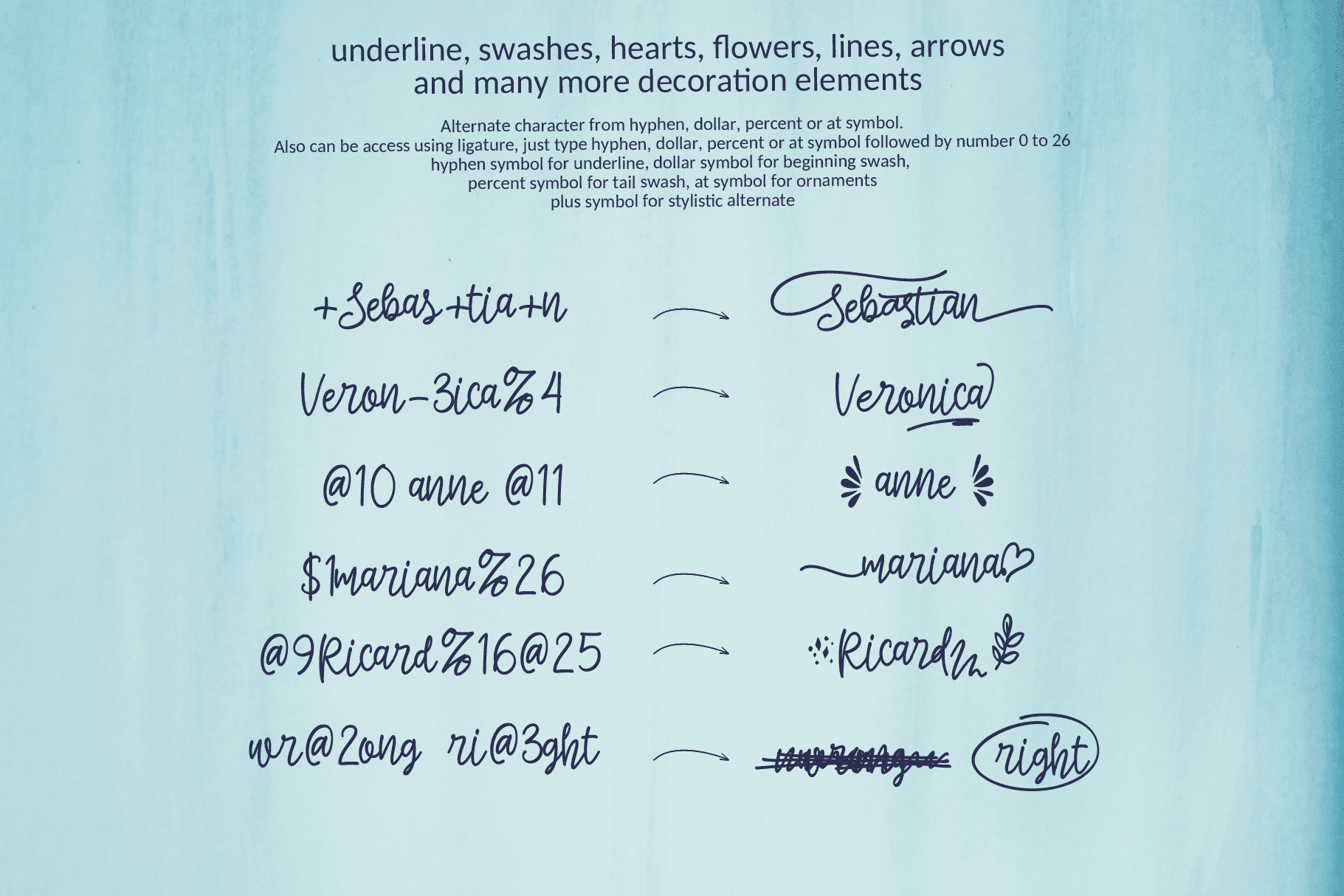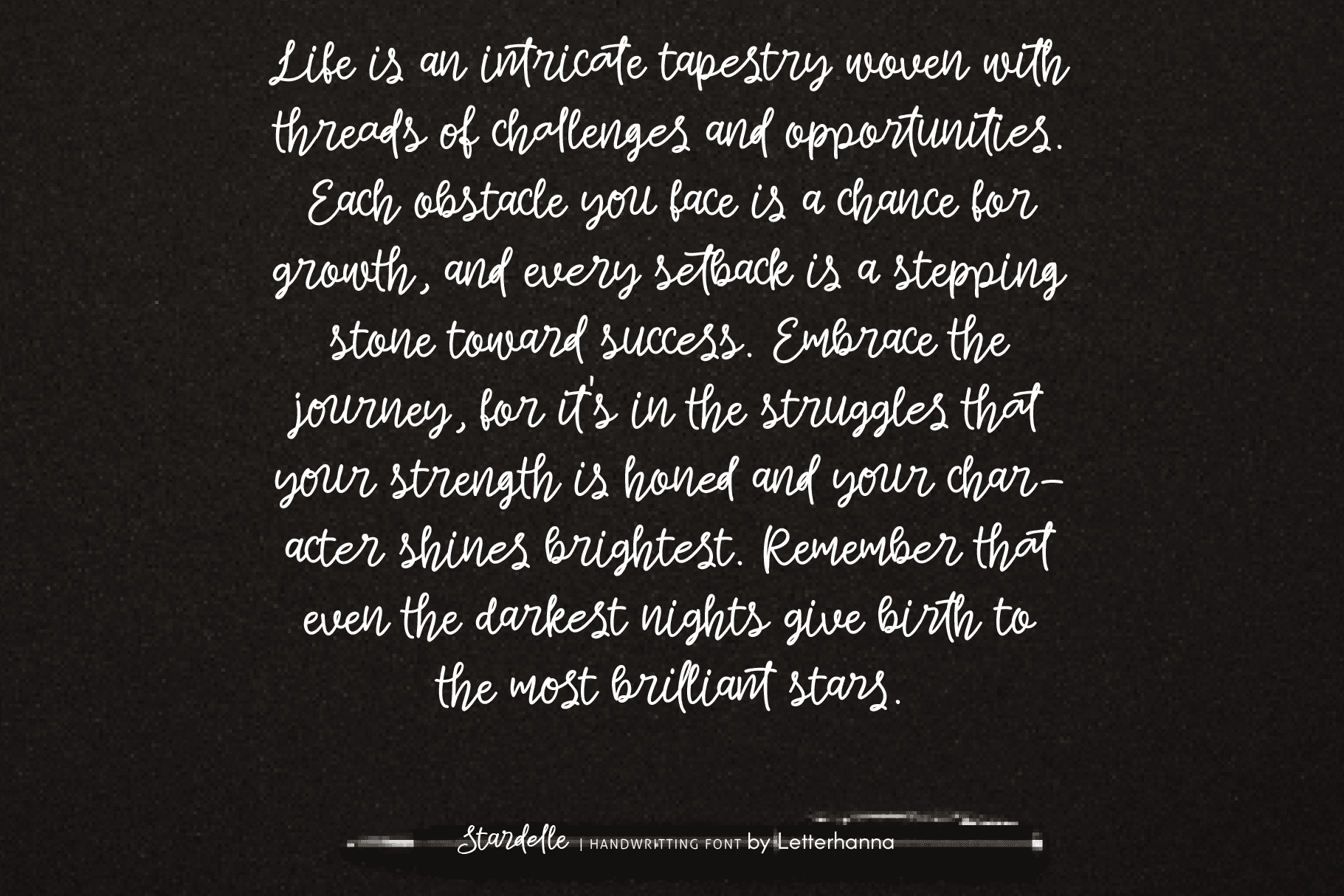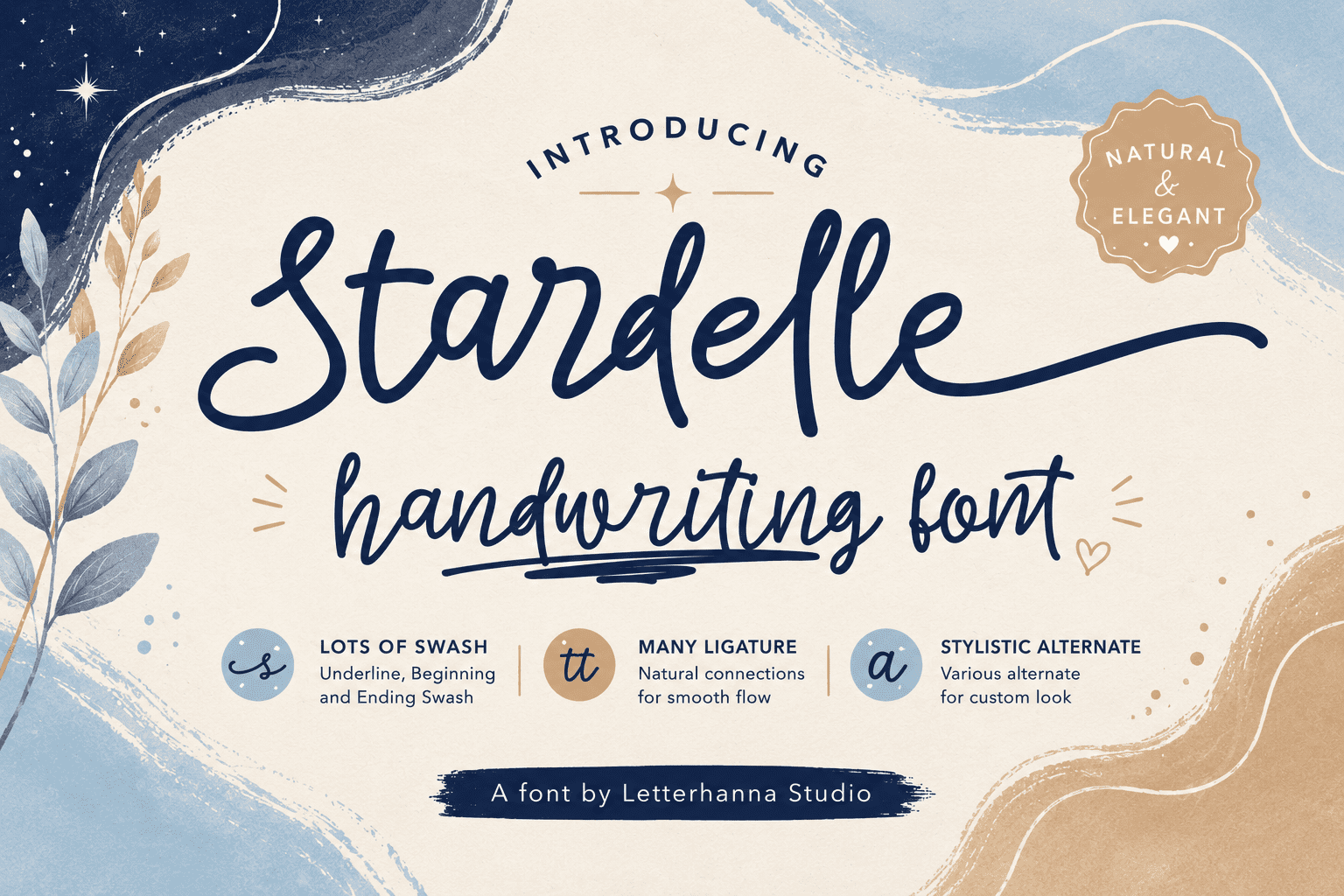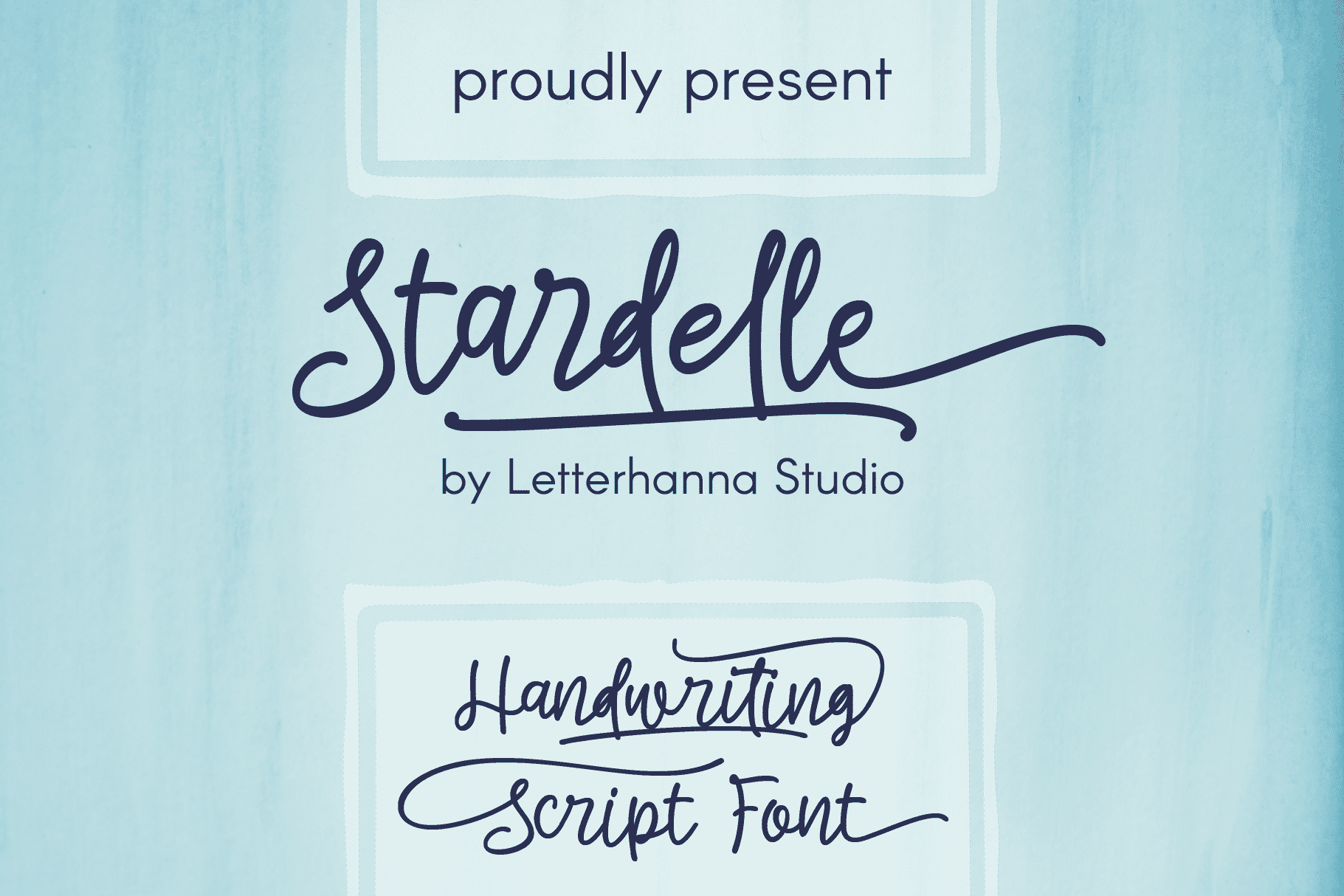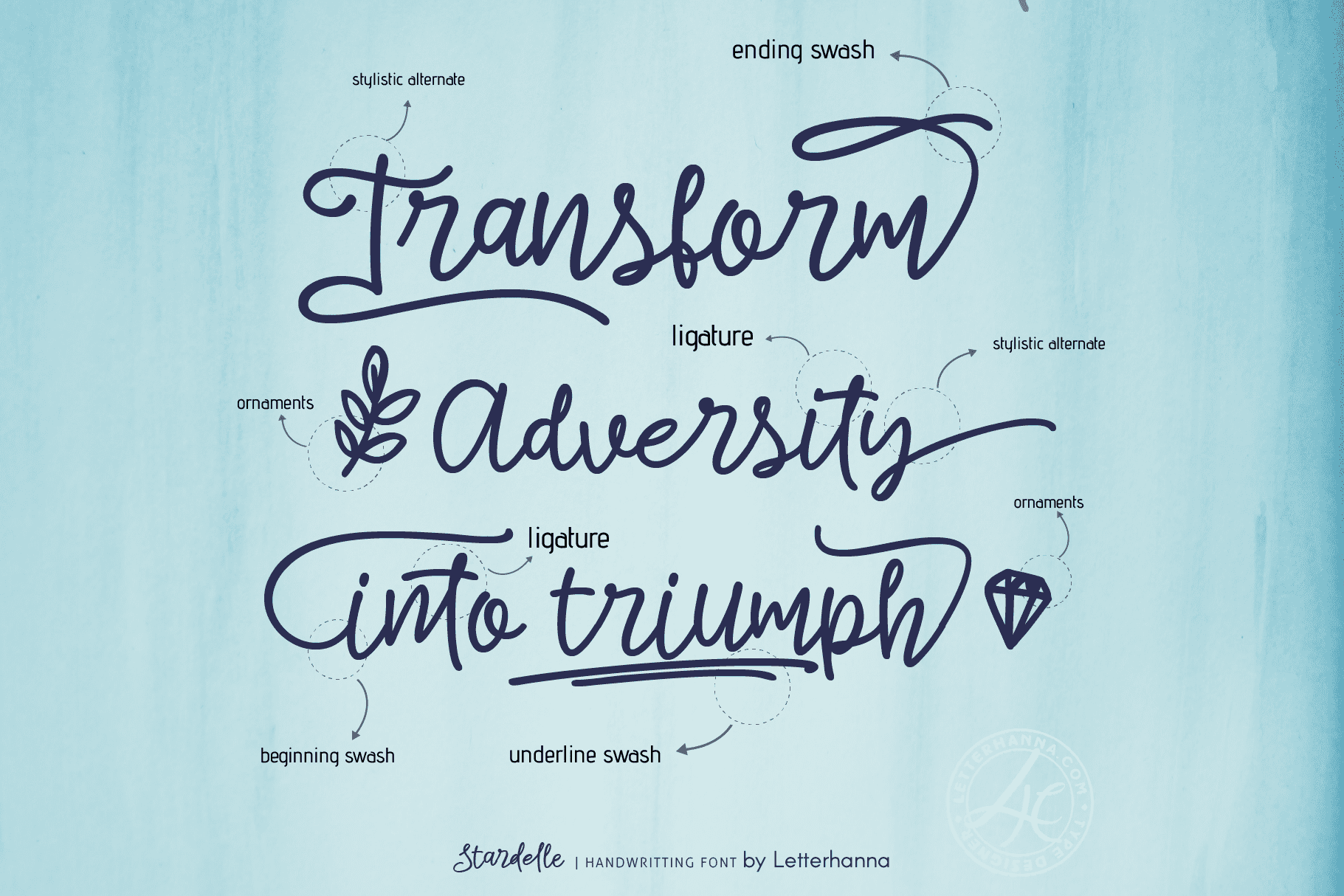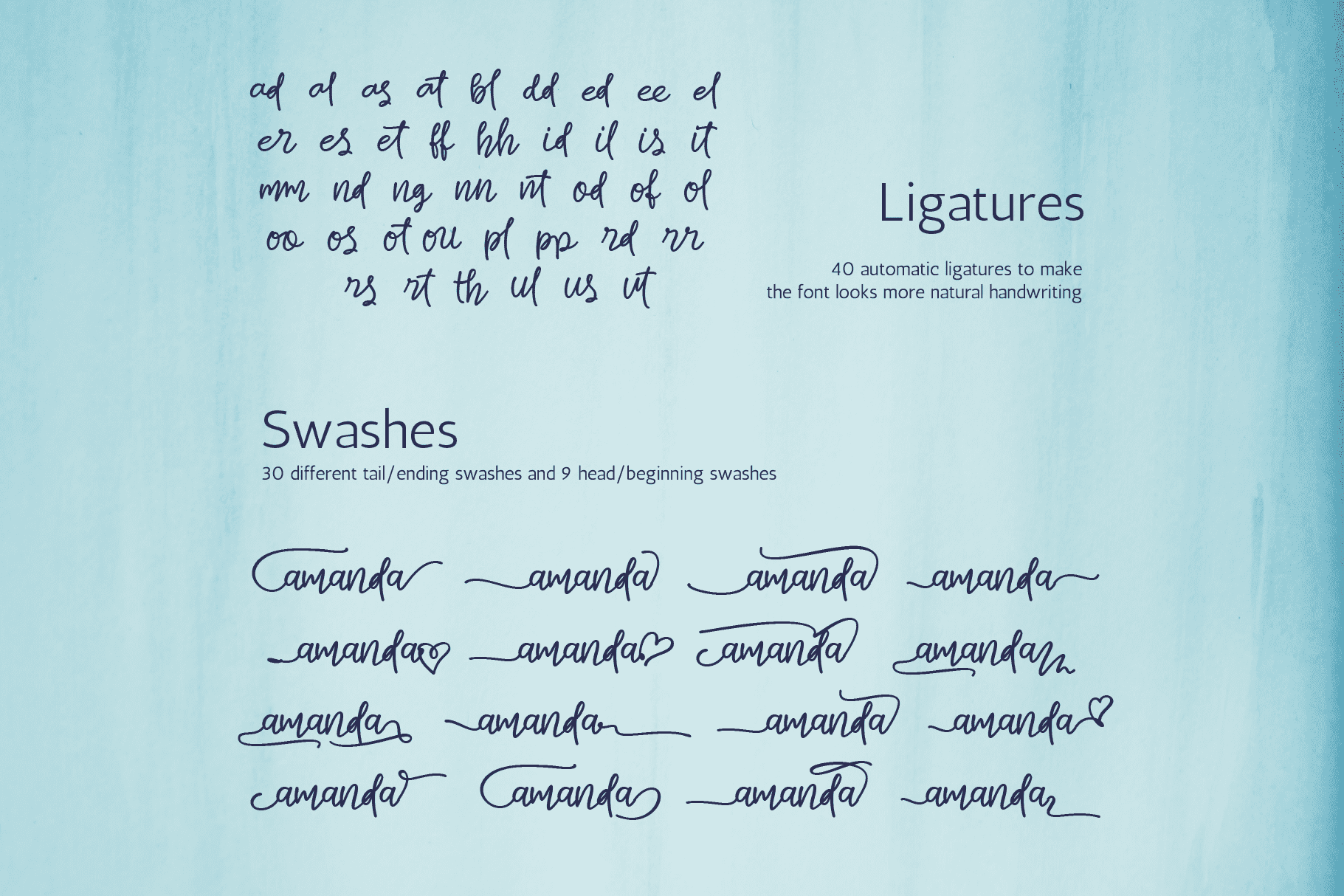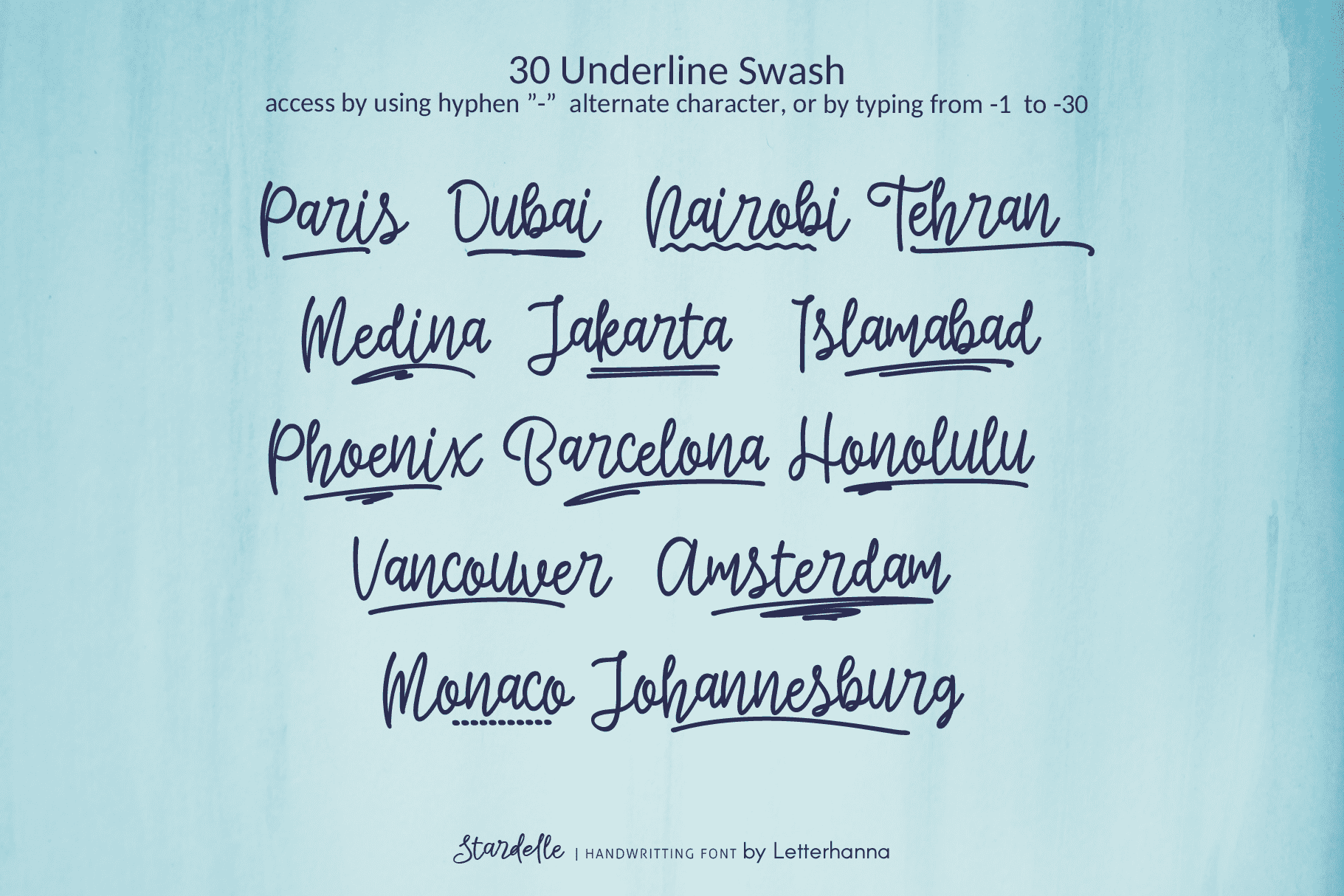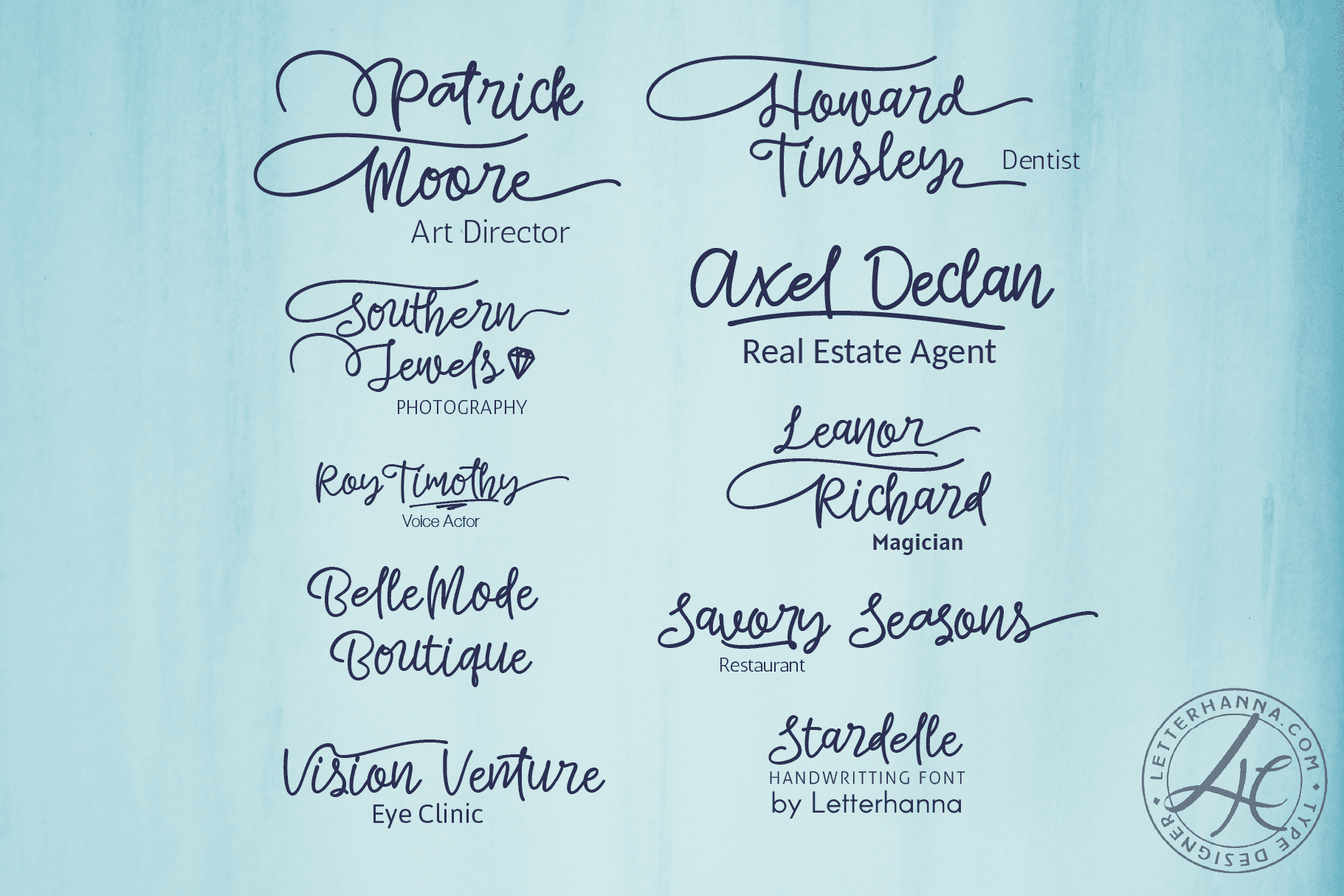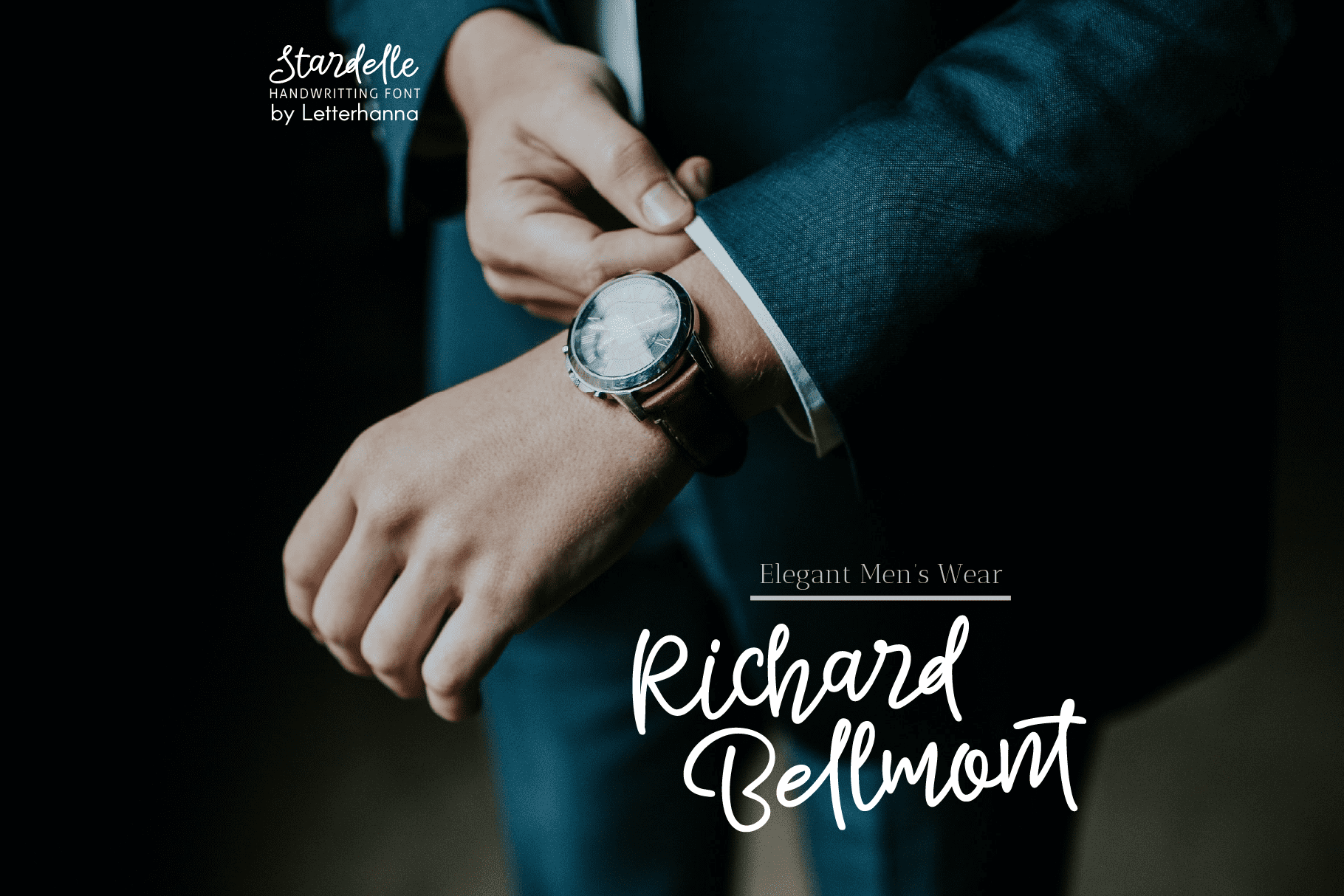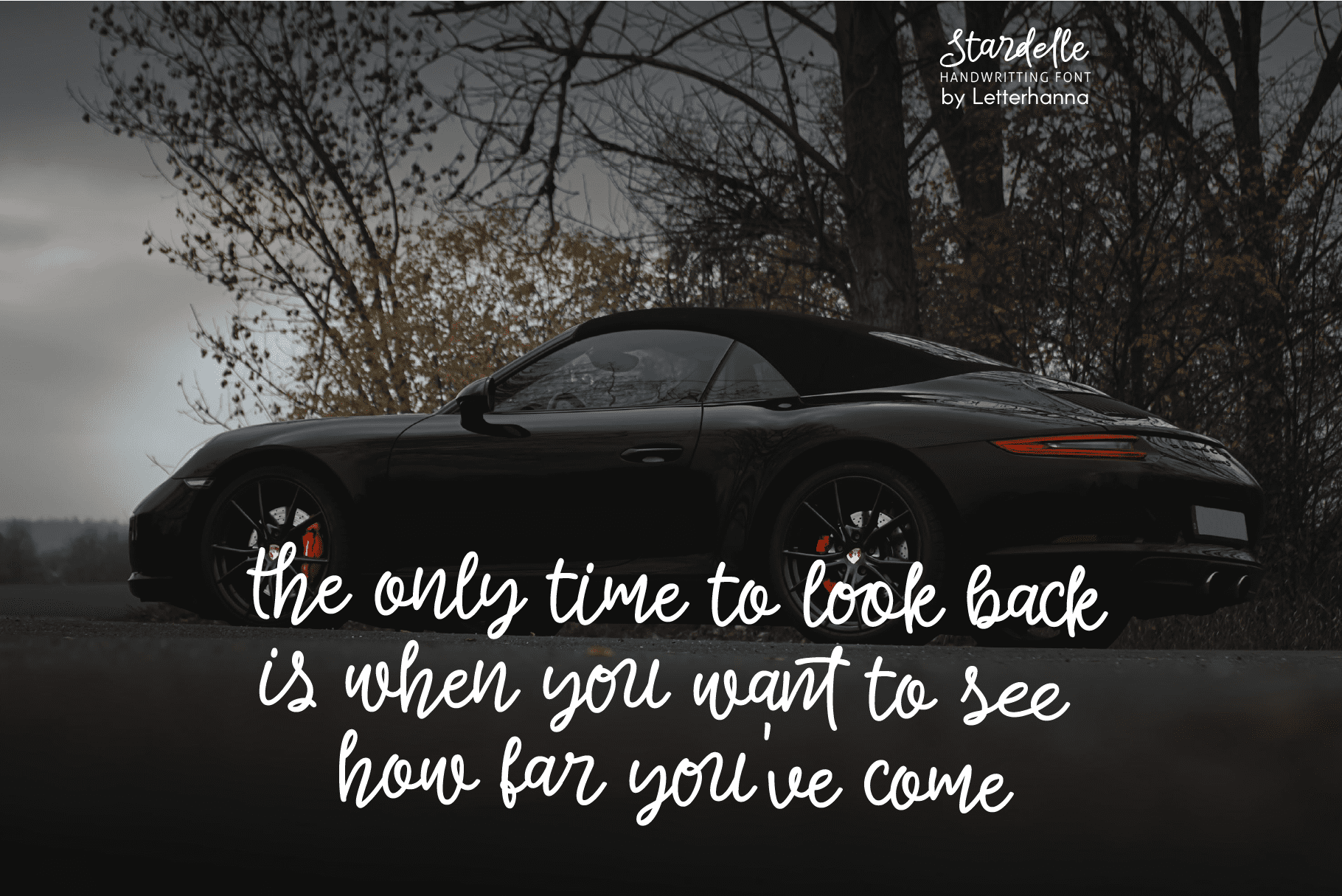
“Introducing ‘Stardelle,’ a bold and beautifully handcrafted font that adds a touch of elegance to your designs. With its flowing lines and abundant swashes, ‘Stardelle’ exudes charm and sophistication. This handwritten font is perfect for adding a personal and artistic flair to invitations, posters, branding, and more. Let ‘Stardelle’ illuminate your creativity and bring a touch of magic to your projects.”
Stardelle Font was created to look as close to a natural handwritten as possible by including over 40 natural-looking opentype ligatures. There are also underline swashes included and lot more ornaments, arrow, scribbles, etc.
Easy access all alternate glyphs, swashes, ornaments and underlines just by using ligatures, you can try yourself in the font preview tool.
Stylistic alternate can be access by type plus symbol “+” in front of the original letter, for example type +A to get stylistic alternate of letter A capital.
Underline swashes can be access by type hyphen symbol “-” then followed by number 1 to 30, for example type -3, -22 or -17 etc to get various different underline swashes.
Head/beginning swashes can be access by type dollar symbol “$” then followed by number 1 to 9, for example type $2 or $8 to get various different head/beginning swashes.
Tail/ending swashes can be access by type percent symbol “%” then followed by number 1 to 30, for example type %3 or %15 etc to get various different tail/ending swashes.
Ornaments can be access by type at symbol “at” then followed by number 1 to 26, for example type @4 or @13 etc to get various different ornaments.
– Uppercase and Lowercase letters
– Numbering and Punctuations
– Multilingual Support
– Ligatures
– Underline swashes
– Ornaments
– Easy access swash just by using ligatures